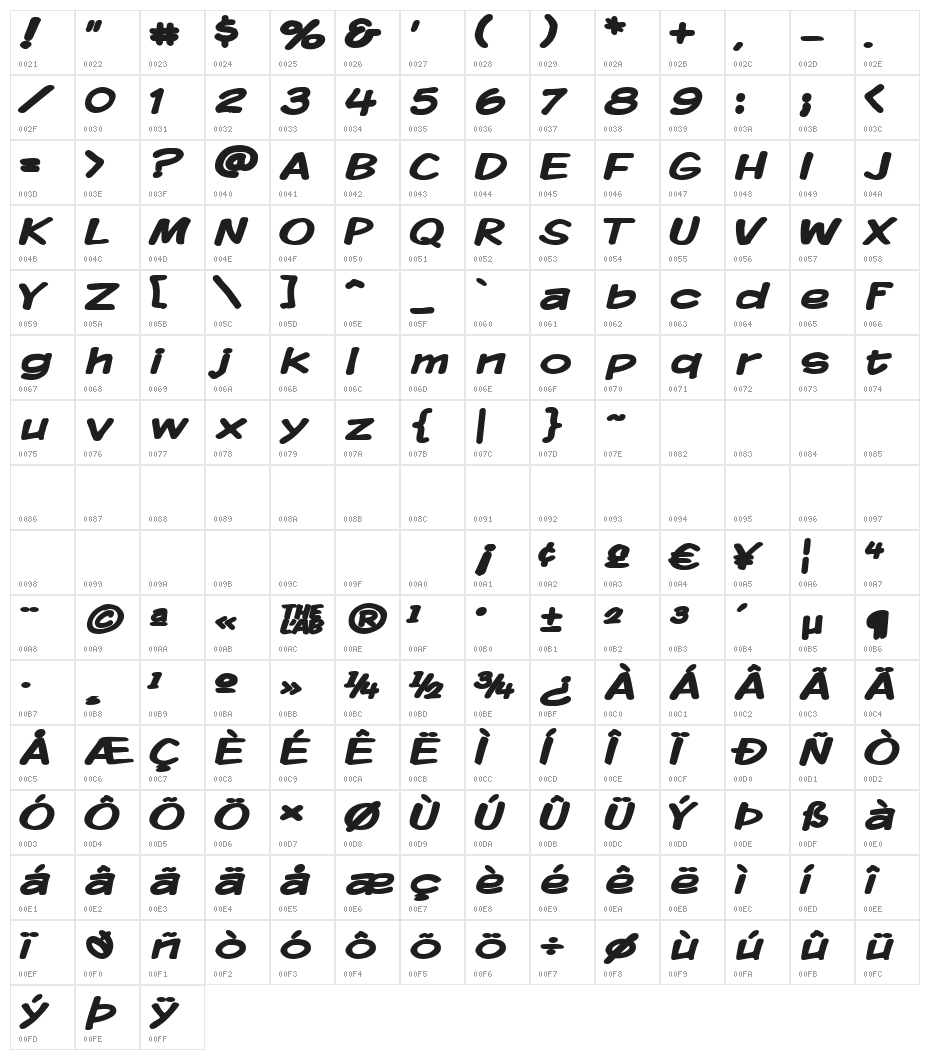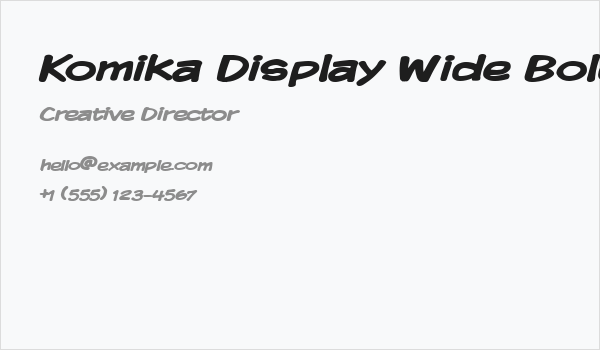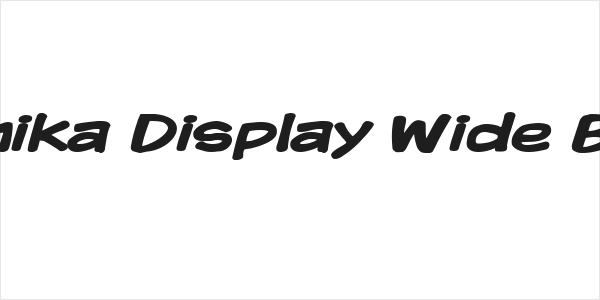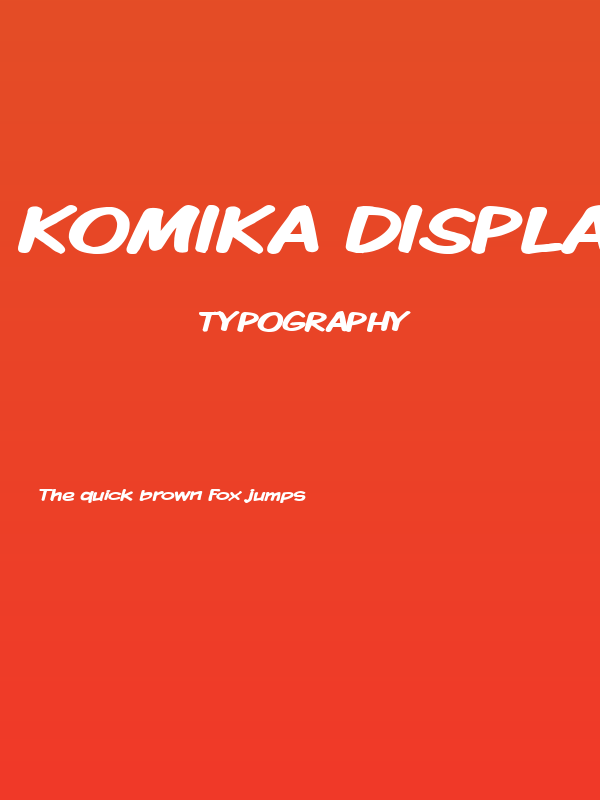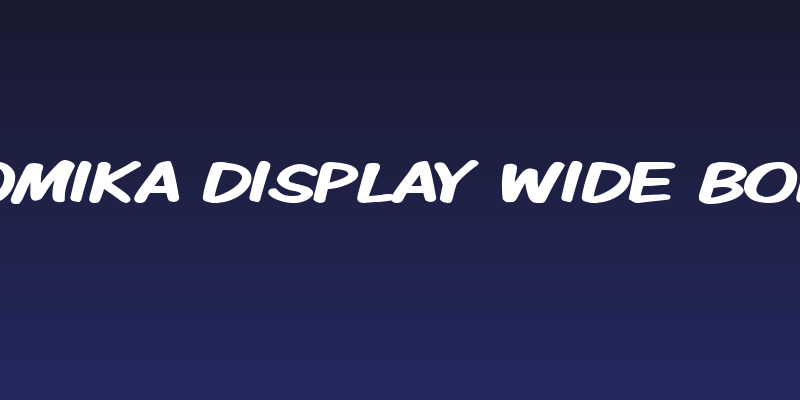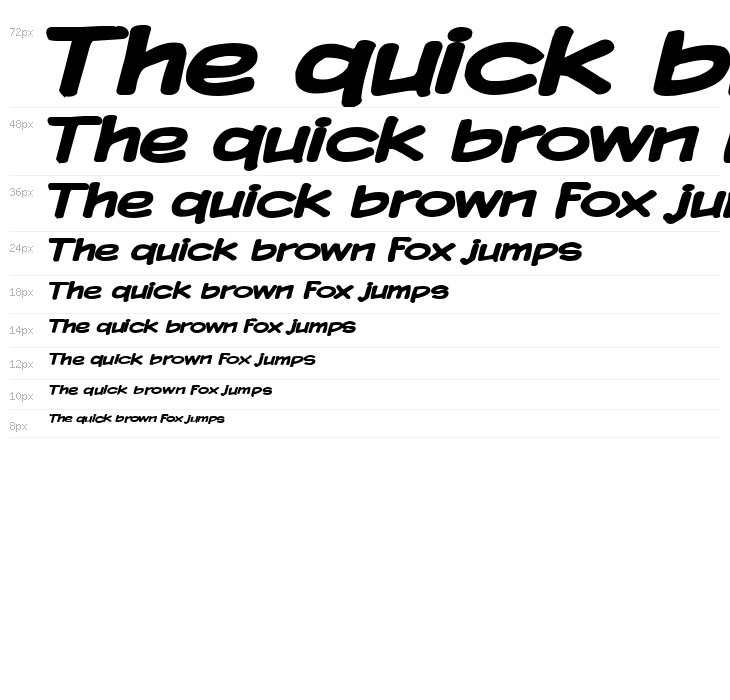
Komika Display Wide Bold Font
Komika Display Wide Bold Description
This font features a bold and playful style, characterized by its wide and rounded letterforms. The strokes are thick and consistent, giving it a strong presence. The letters have a slight slant, adding a dynamic and energetic feel. The overall appearance is casual and friendly, making it suitable for informal and fun projects. The uppercase and lowercase letters are well-balanced, and the numbers are clear and easily readable. Special characters are included, maintaining the same bold and lively style.
| Overall Style | Playful and Casual |
| Proposed Projects | Ideal for comic books, children's books, playful branding, and informal posters. |